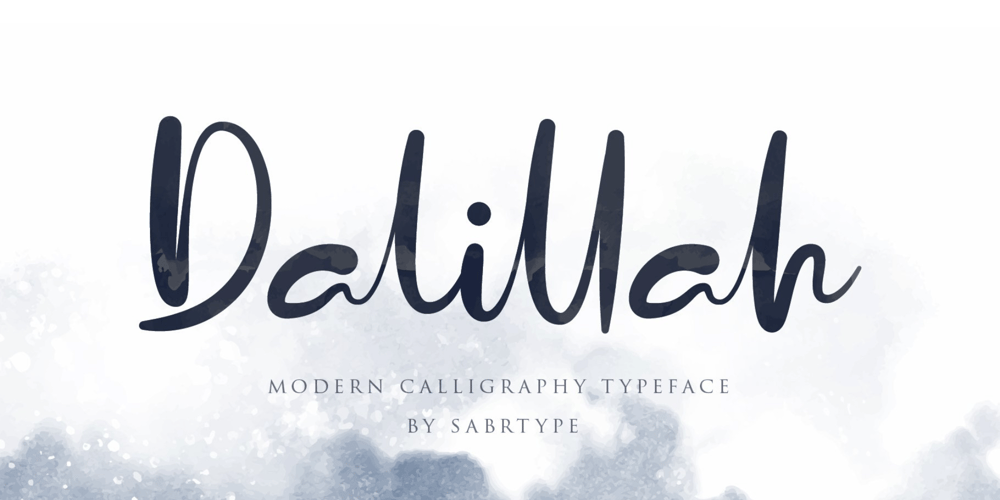
Dalillah
Dalillah font
Dalillah Font Family was designed by Irpan Maulana and published by Sabrcreative. Dalillah contains 1 styles and family package options. Experience the art of personalized elegance with the Dalillah Handwriting Signature Font. This typeface effortlessly blends the authenticity of a handwritten signature with a touch of refinement, making it an exceptional choice for projects that demand a sophisticated and personalized touch.